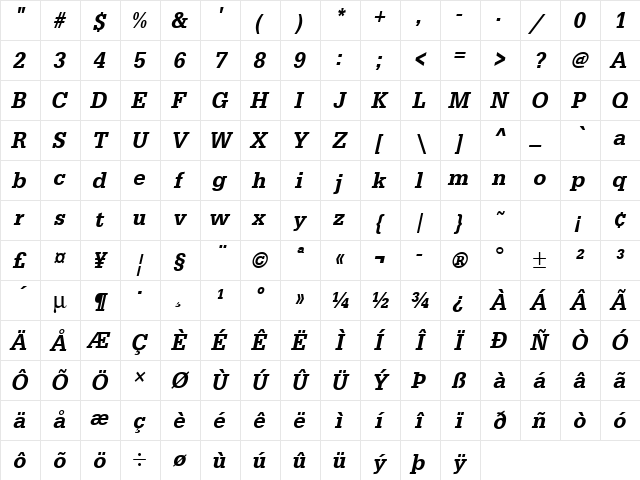
Complete URWEgyptienneTMedExtNar Oblique glyph index. Displaying only characters natively supported by URWEgyptienneTMedExtNar Oblique font.
URWEgyptienneTMedExtNar is a composed and adaptable typeface that performs quietly and consistently across a wide range of design contexts. The slanted form adds forward momentum and visual energy.
Pro Tip: Use URWEgyptienneTMedExtNar for emphasis, pull quotes, and subheadings where its slanted energy can add rhythm to the layout.